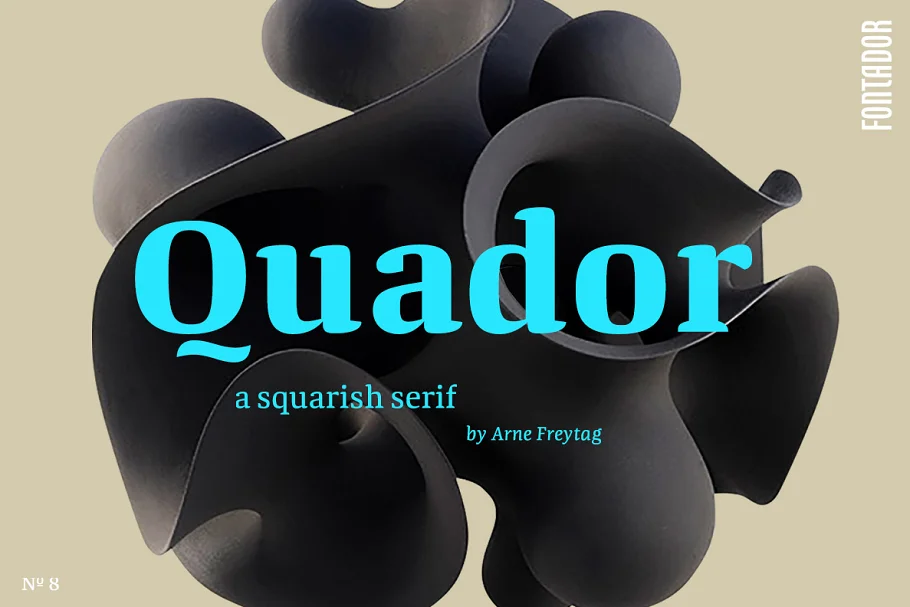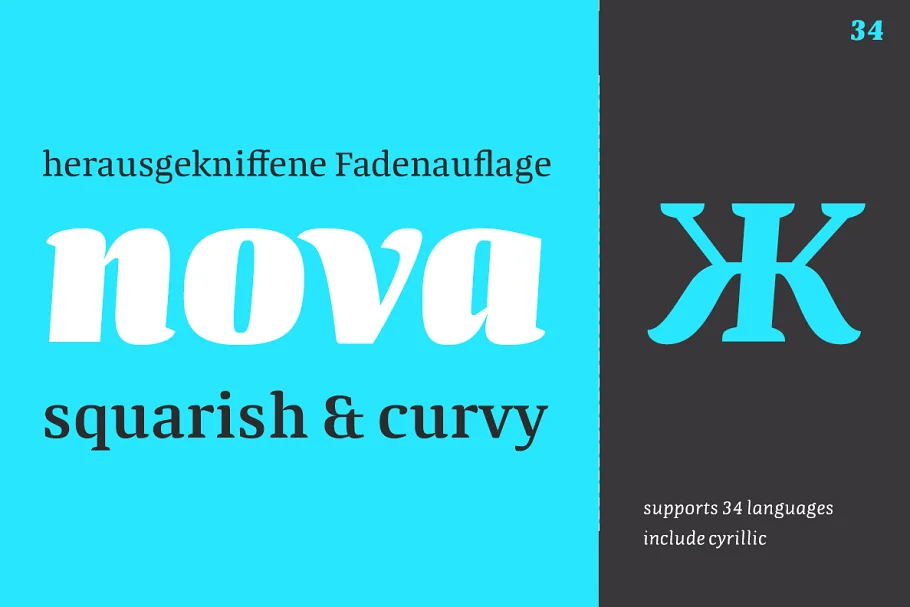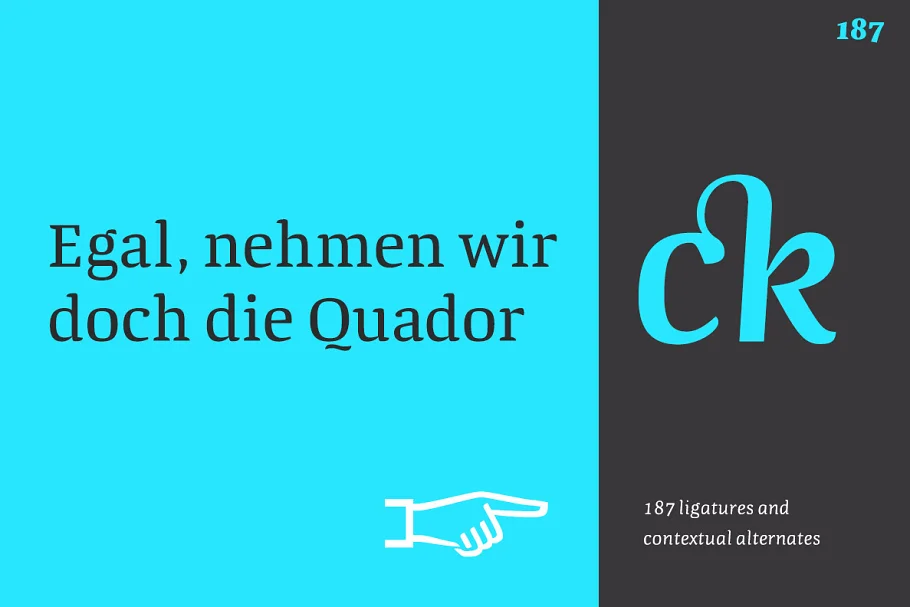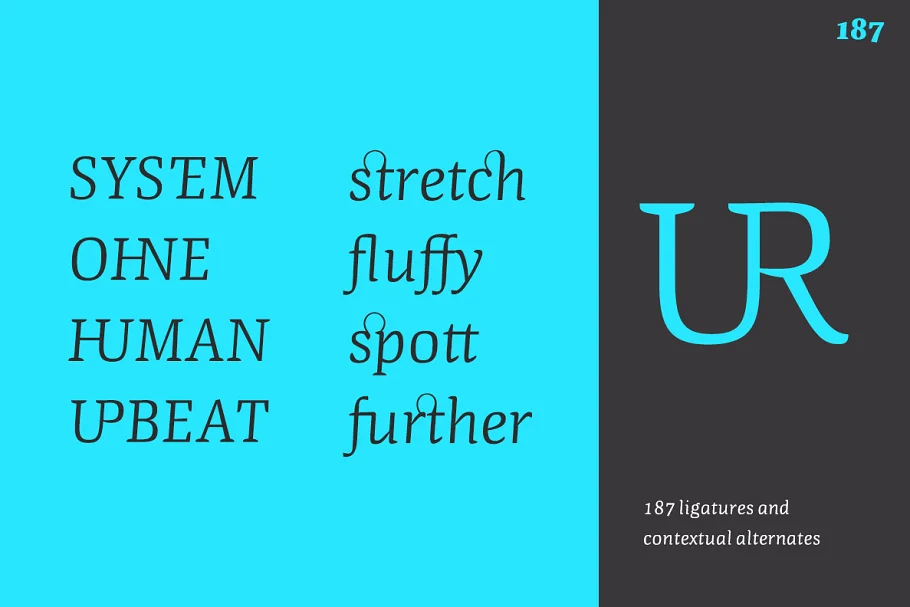
About the Quador Font
Quador is a squarish serif, specially designed for contemporary typography on print and screen. The superellipse-based forms and high x-height allow large and open letterforms, perfectly adapted to the pixel grid on the screen.
With rounded serifs, Quadro provides a soft and friendly atmosphere. The font contains 6 weights from light to ultrabold plus true italics. 1.115 glyphs include 187 ligatures, small caps, tabular, old-style, fractions …, and a wide range of flexibility for Latin language and Cyrillic support for every typographical need.
Quador is a contemporary serif typeface, special for logotypes, brands, magazines, and editorial.